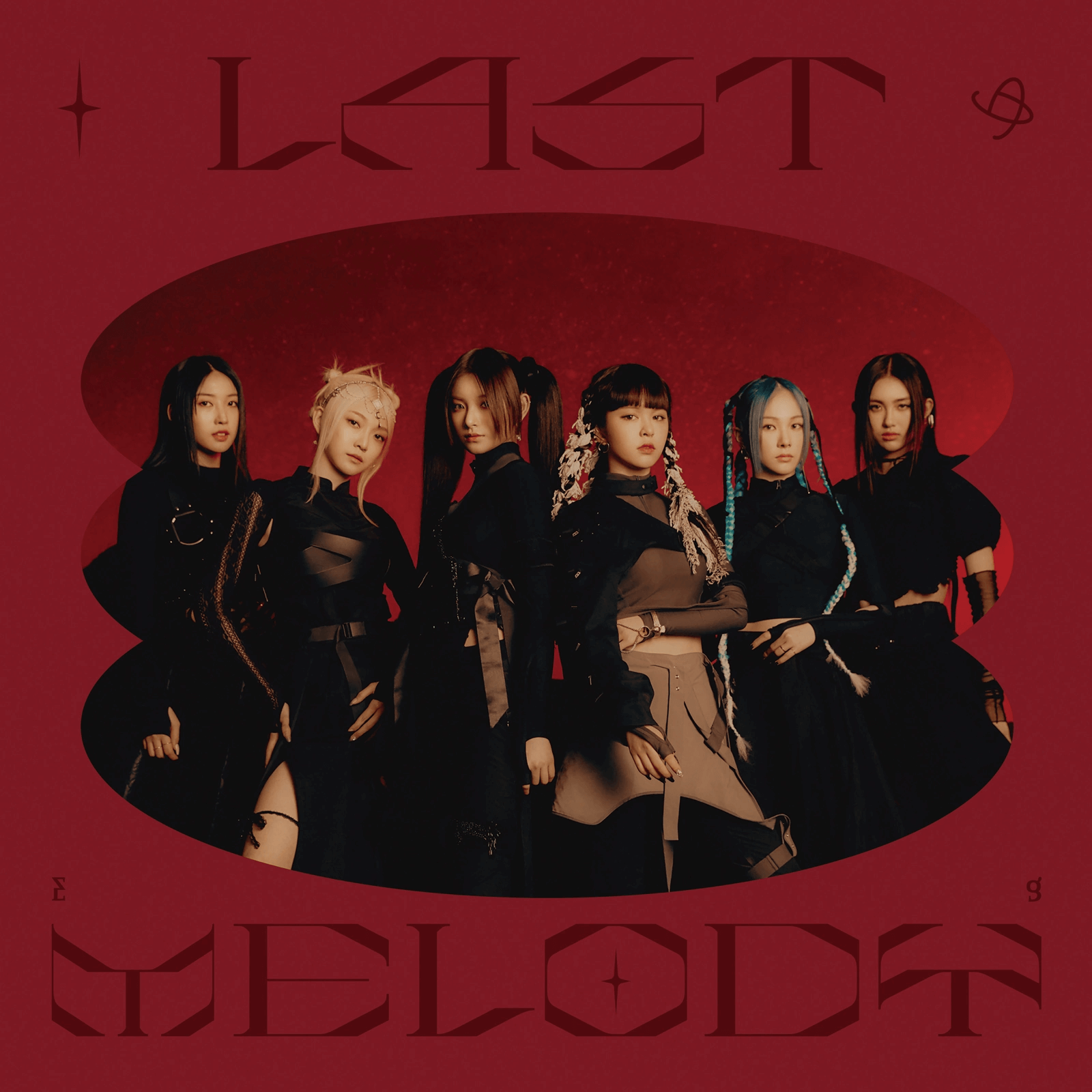
Last Melody Font
Fonts in UseLast Melody is a studio album by the Japanese band Kokia, released in 2018. The album features a collection of nostalgic and emotional ballads that showcase Kokia's signature ethereal vocals and rich orchestrations.
The album title was written using Engin, an all-caps font designed by Victor Pesotsky with a modern and futuristic appearance. A trial version of the font can be downloaded for free from the Fonts Used Section. While the full version and commercial license are available for purchase here.